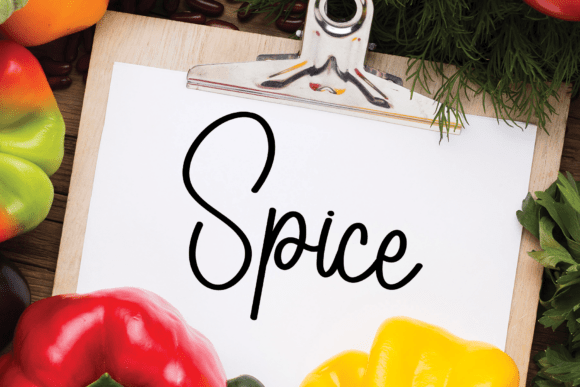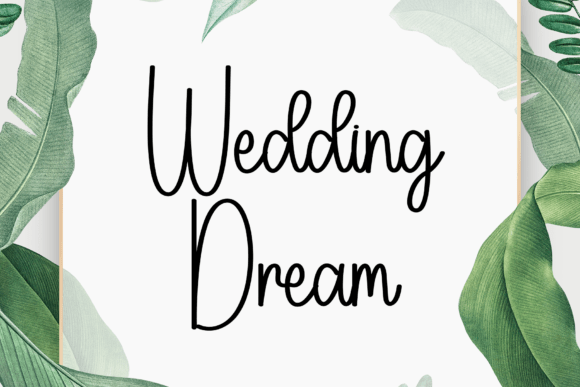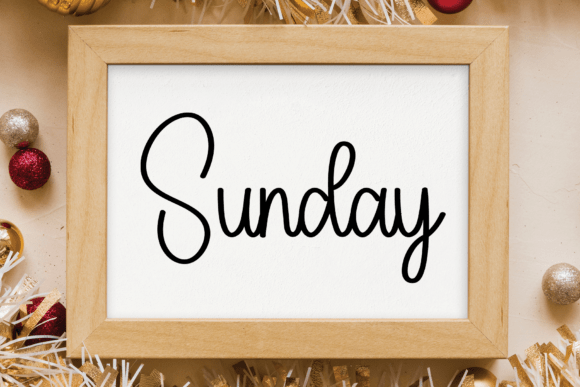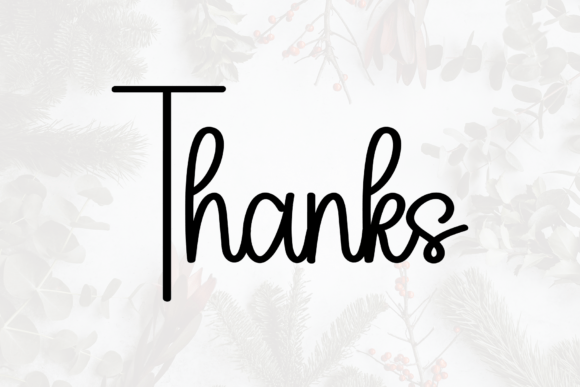
The Ultimate Guide to Animals Valentine Font: Elevate Your Designs with a Touch of Whimsy
I’ll never forget the time I was working on a Valentine’s Day project for a client, and I just couldn’t find the perfect font to match the playful yet elegant vibe they were looking for. I scrolled through page after page of Google Fonts, tried out a dozen different options, but nothing seemed quite right. That was until I stumbled upon Animals Valentine Font. It was like a breath of fresh air – a handwritten font that looked like it was drawn with a marker, with a relaxed and sporty feel that instantly captured the essence of the holiday.
An Honest Review of Animals Valentine Font
- ✨ Unique and eye-catching: Animals Valentine Font is a true showstopper. Its distinctive, marker-drawn aesthetic sets it apart from more traditional fonts and adds a touch of whimsy to any design.
- ✅ Versatile: Whether you’re working on branding, logos, wedding supplies, greeting cards, or marketing promotions, this font adapts seamlessly to any project.
- 💕 Elegant yet casual: Animals Valentine Font strikes the perfect balance between sophistication and laid-back charm, making it perfect for designs that need to feel luxurious yet approachable.
While Animals Valentine Font is an amazing addition to any design toolkit, there are a few things to keep in mind. ⚠️ Some users have noted that the font can be a bit tricky to read at smaller sizes, so it’s best to use it for headlines or titles rather than body text. Additionally, while the font comes with a range of OpenType features, it may not have every stylistic alternate or glyph you need, so be sure to explore the font’s capabilities before committing to a project.
- Experiment with the font’s OpenType features, such as ligatures and stylistic alternates, to add some extra flair to your design.
The Story Behind Animals Valentine Font
While the true origins of Animals Valentine Font are shrouded in mystery, it’s easy to imagine that it was created by a designer who loves whimsy and playfulness. Perhaps they were inspired by childhood drawings, or the imperfect charm of handwritten notes. Whatever the inspiration, the result is a font that’s equal parts elegant and approachable.
Q: Is Animals Valentine Font suitable for body text?
A: While Animals Valentine Font is beautiful, it’s best suited for headlines or titles rather than body text. It can be a bit tricky to read at smaller sizes, so it’s best to use it sparingly.